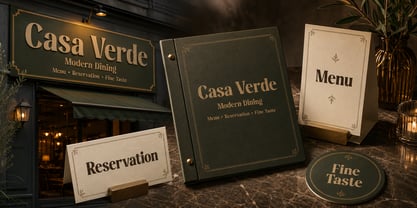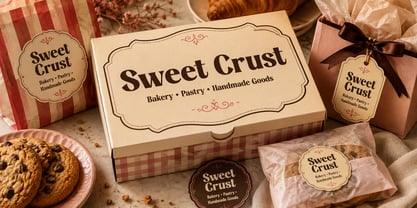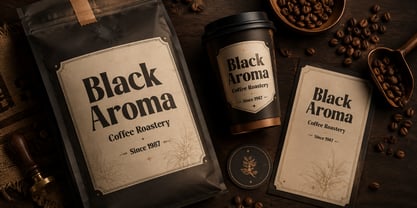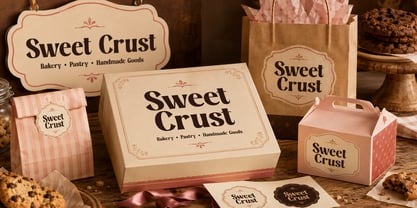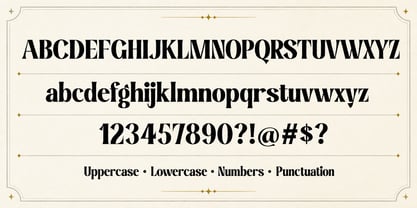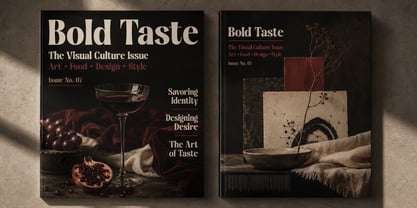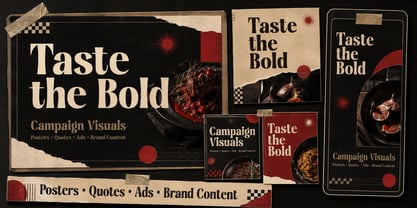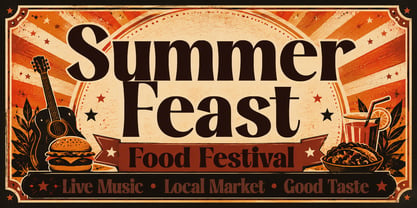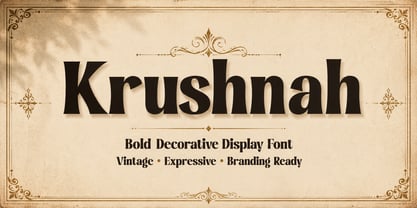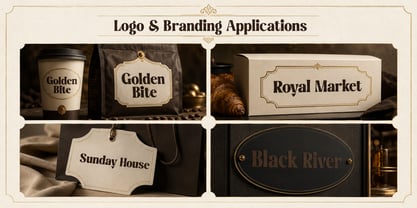
Krushnah
The Krushnah Font Family was designed by Mhd Husaini and published by SimpleType Studios. Krushnah contains 1 styles. More about this family
Krushnah — High-Contrast Condensed Display Serif
Editorial attitude in a single, confident weight.
Krushnah is a high-contrast condensed display serif built for headlines that refuse to be ignored. Its narrow proportions, dramatic thick-to-thin modulation, and flared, blade-like terminals give it the presence of a fashion-magazine masthead — elegant, sharp, and unmistakably contemporary. Set it large and it carries the polish of luxury branding; set it in a tight stack and it reads like a poster waiting to happen.
Designed and produced by Mytype Studio, Krushnah pairs its expressive letterforms with practical typographic support: standard ligatures, automatic fractions, ordinals, superscript figures, and refined kerning across a 232-glyph character set with multilingual Latin coverage. It's a display face engineered to look intentional in logos, covers, and editorial layouts — not just decorative.